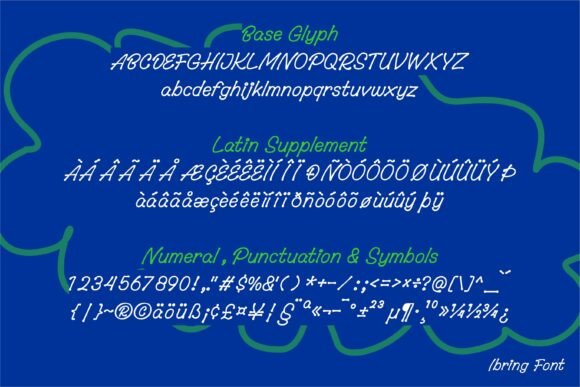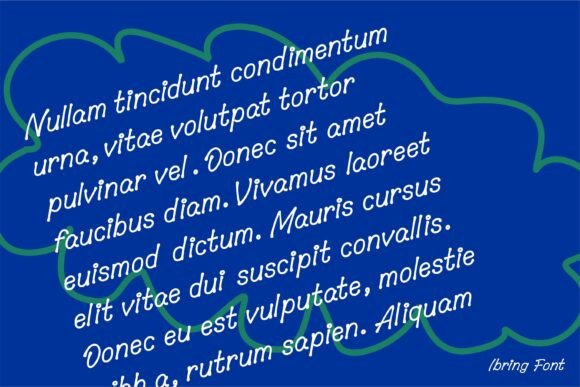
The Perfect Touch of Personality: Unlocking the Potential of Ibring Font Font
You know that feeling when you’re brainstorming ideas for a new project, and suddenly, everything falls into place? That’s exactly what happened when we stumbled upon the Ibring Font Font. Its stylish handwritten charm instantly captured our attention, and we knew we had to dive deeper.
The Ibring Font Font is a versatile, casual font that adds a personal touch to any design project. Whether you’re creating invitations, posters, or social media graphics, this playful script is sure to make your work stand out. What makes Ibring Font Font so valuable for designers is its ability to evoke emotions and connect with audiences on a deeper level.
With the Ibring Font Font, you can give your designs a unique voice and personality, setting you apart from the crowd. In this article, we’ll explore the world of Ibring Font Font and show you how to unlock its full potential in your next design project.
Ibring Font Font Key Features
- Unique Characteristics: Ibring Font Font is a highly customizable and versatile font family with over 1000 glyphs, making it suitable for various design projects, including logos, branding, and digital products.
Ibring Font Review
I recently had the chance to work with the Ibring Font, and I must say it’s a decent addition to any designer’s toolkit. ✨ One of the things that stands out about this font is its unique aesthetic. It’s modern, yet vintage-inspired, making it a great choice for projects that require a touch of sophistication.
- ✨ Versatility: The Ibring Font can be used for a wide range of projects, from logos to body text.
- ✨ Readability: The font is clear and easy to read, making it perfect for long-form content.
- ✨ Customization: The font is available in various weights and styles, allowing you to customize it to suit your needs.
- ⚠️ Limited language support: The font may not support certain languages or character sets, which could be a problem for projects that require multilingual support.
- ⚠️ Not suitable for small text: The font’s unique style may make it difficult to read at very small sizes.
Overall, I’d say the Ibring Font is a solid choice for designers who are looking for a modern, vintage-inspired font. While it may have some limitations, its versatility and readability make it a great addition to any toolkit.
Ibring Font is a versatile font that can be used in a variety of design projects, including:
Alternatives to Ibring Font Font
Montserrat is a sans-serif font that is highly legible and versatile. It’s ideal for use in digital interfaces, particularly in titles and headings. Montserrat is a popular alternative to Ibring Font Font due to its clean lines and modern feel, making it suitable for a wide range of design projects.
Lato is a modern sans-serif font that is highly customizable and suitable for various design applications. It’s particularly effective in creating a clean and minimalist look, making it a great alternative to Ibring Font Font for designs that require a touch of elegance and sophistication.
Open Sans is a highly legible and versatile sans-serif font that is widely used in digital interfaces. It’s ideal for use in body text and is particularly effective in creating a clear and readable design. Open Sans is a great alternative to Ibring Font Font due to its high readability and adaptability to various design contexts.